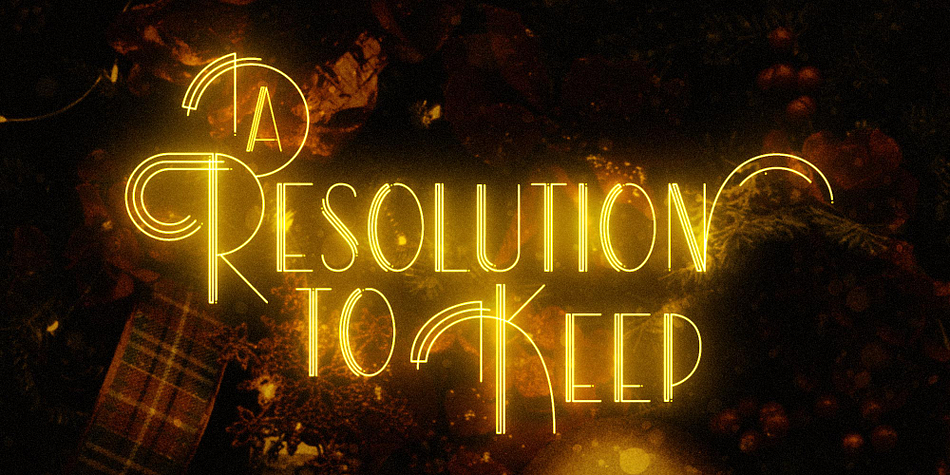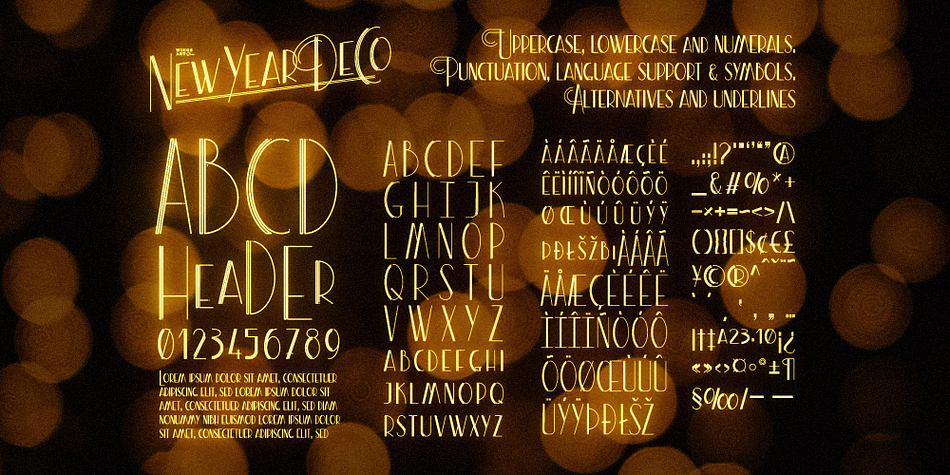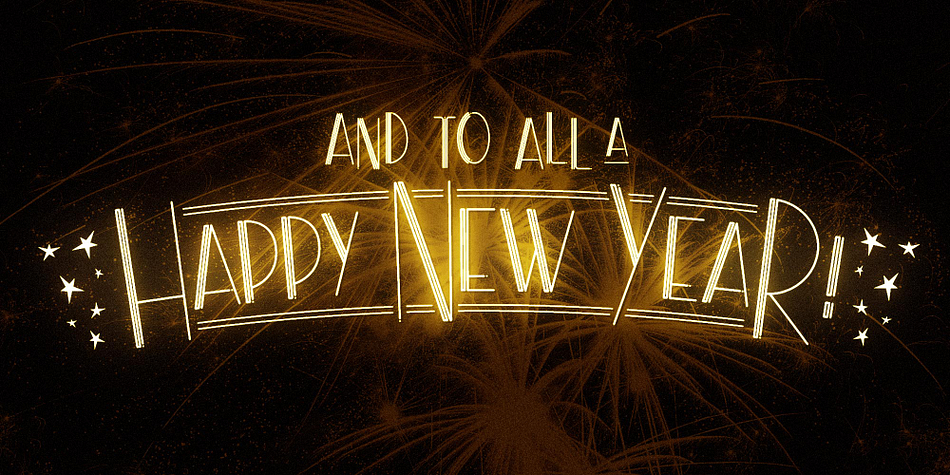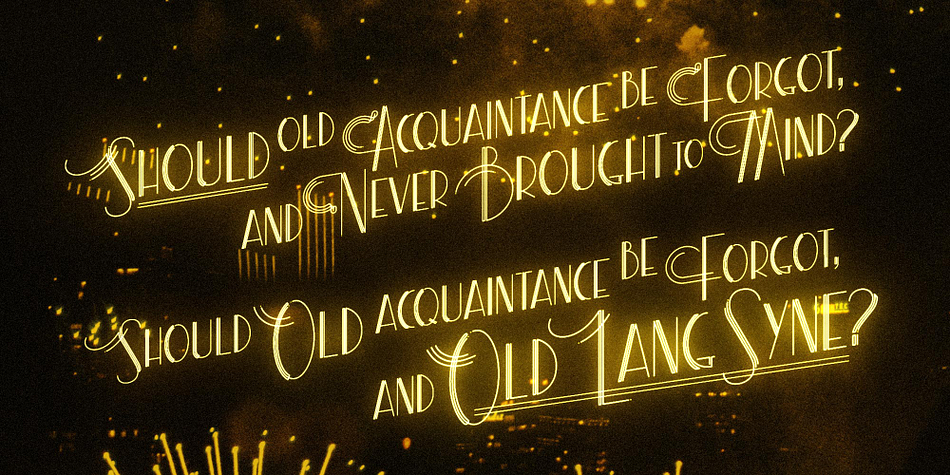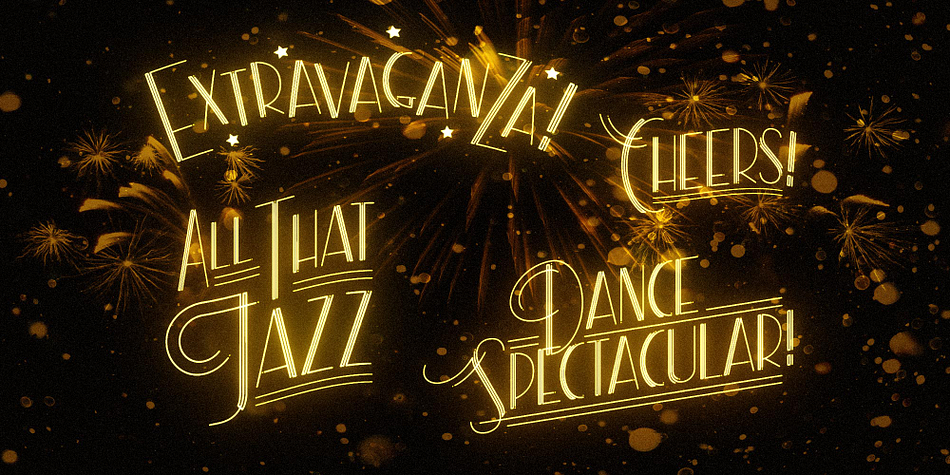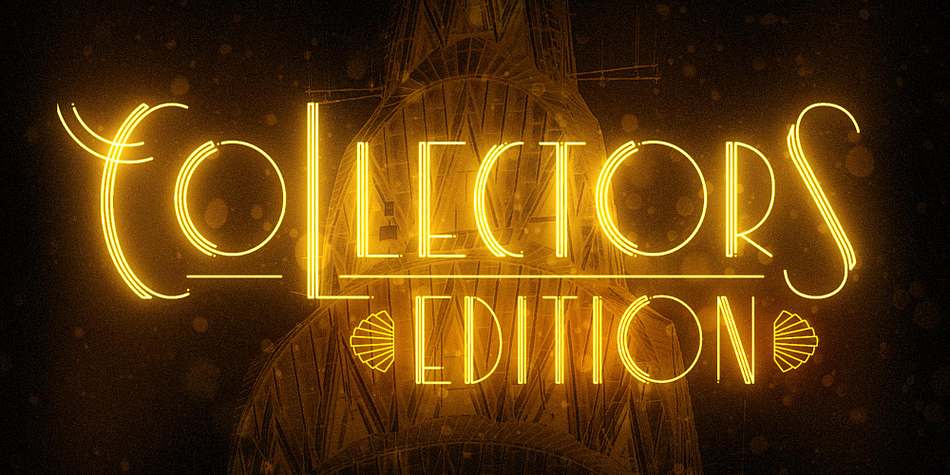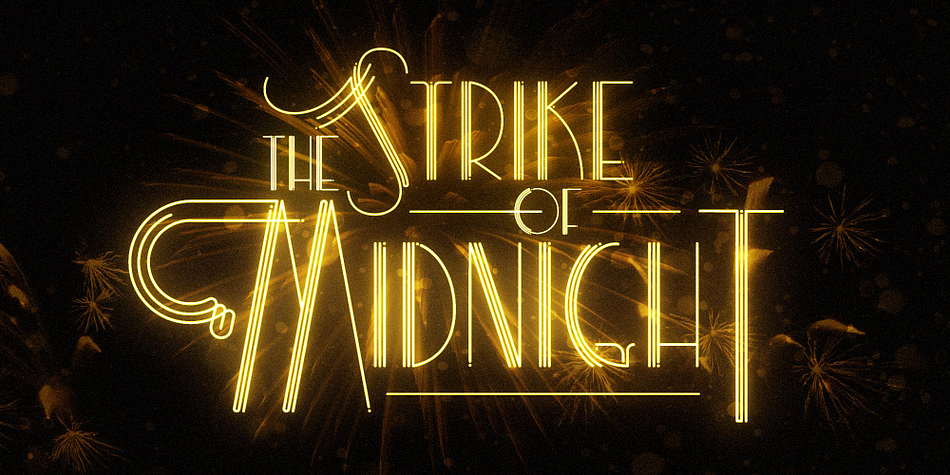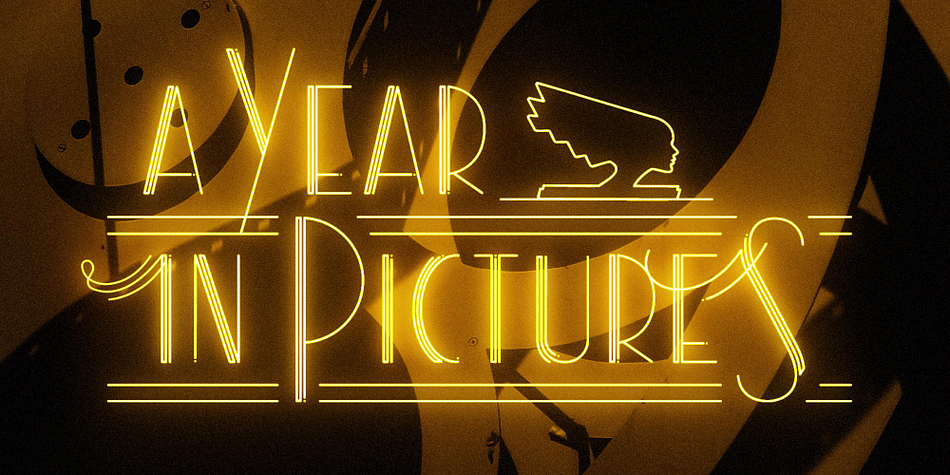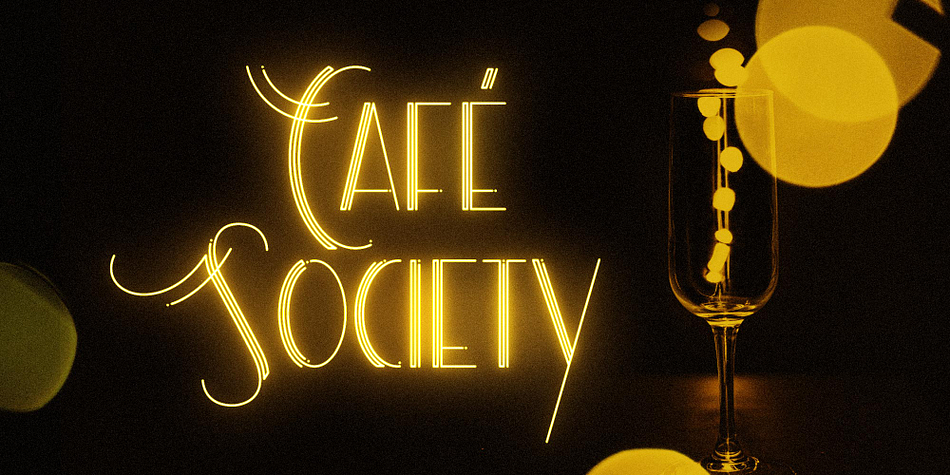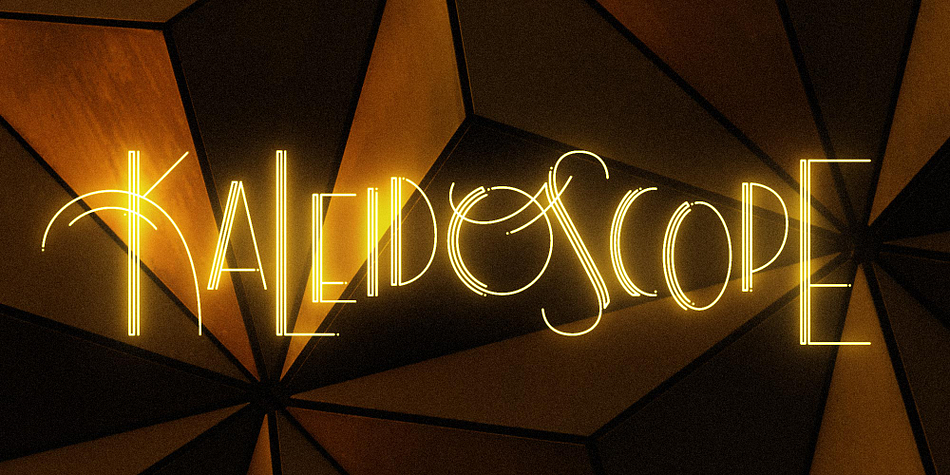
New Year Deco
New Year Deco is an art deco and dingbat font family. This typeface has five styles and was published by Wingsart Studio.
Raise a glass to the New Year with this elegant, vintage-inspired Art Deco header font.
New Year Deco is a decorative display font with a festive flourish inspired by classic Art Deco design. Featuring four alternative styles, this all-caps design is tailor-made for invitations, award ceremonies, elegant title designs, and logos.
It includes unique uppercase and lowercase characters, along with numerals, punctuation, and language support. It also includes a variety of illustrated symbols, underlines, and icons for an extra graphic touch. See the visuals for more.